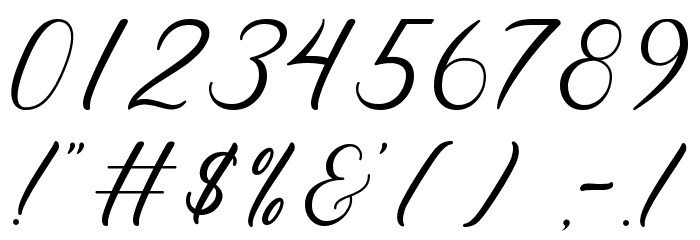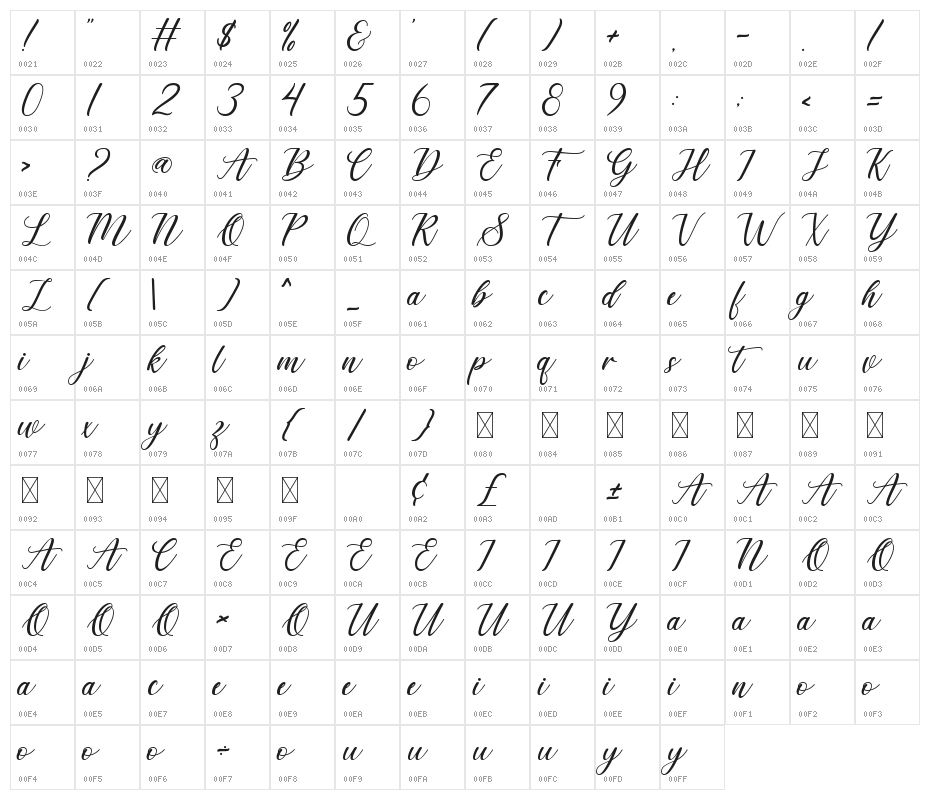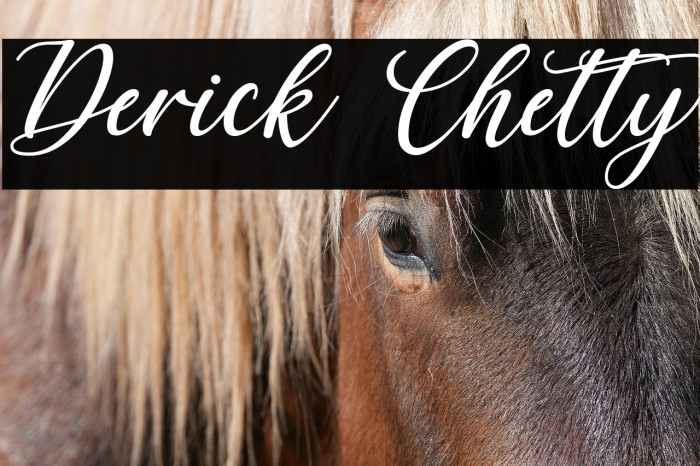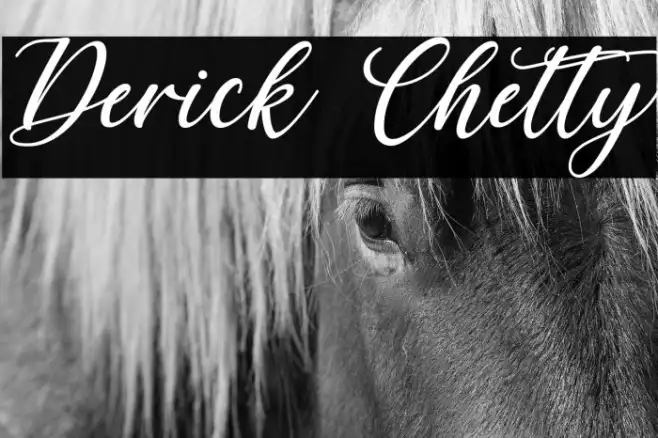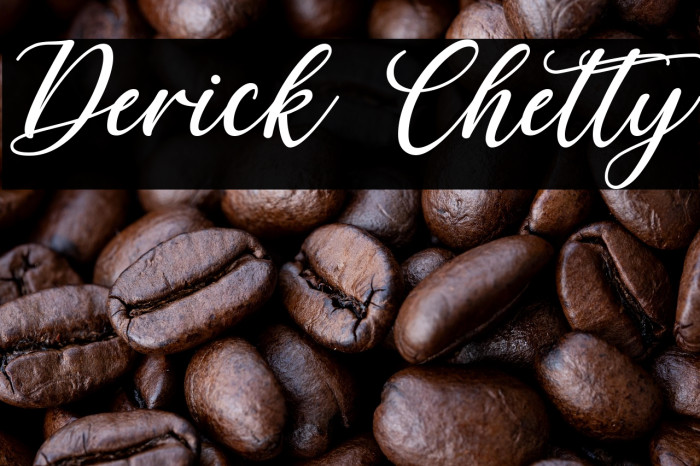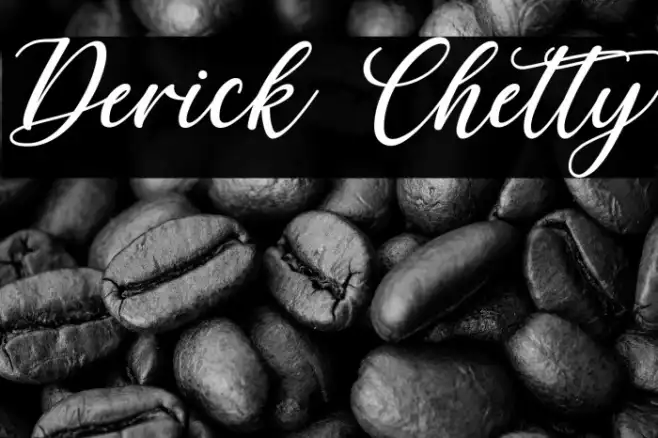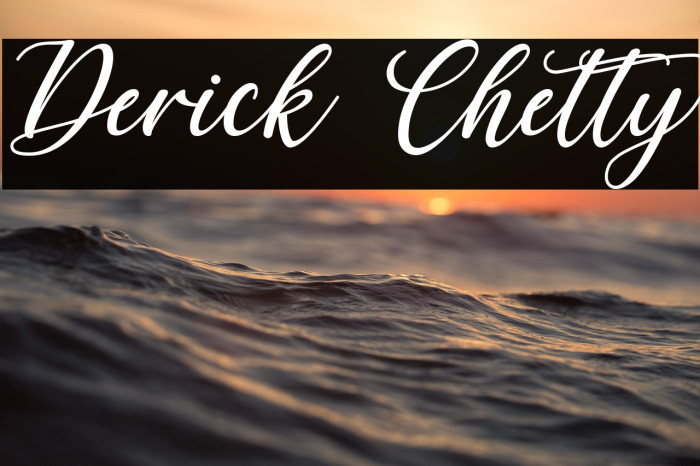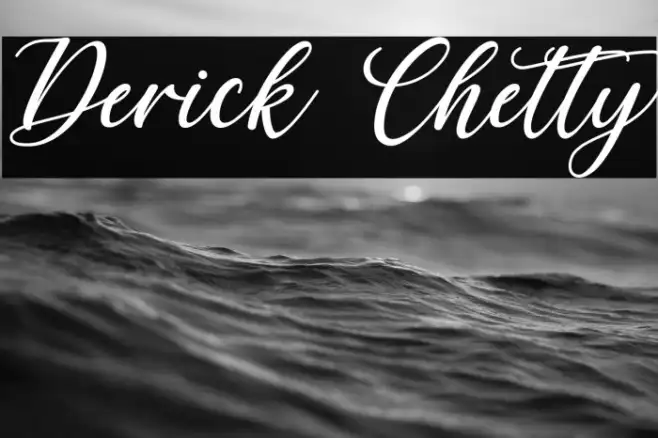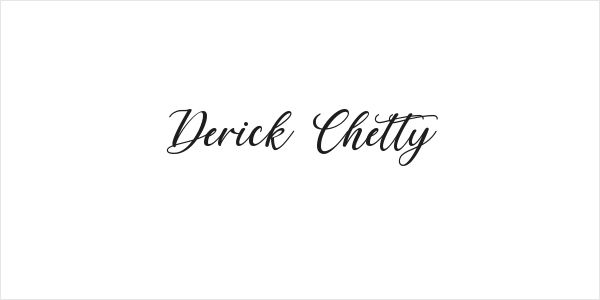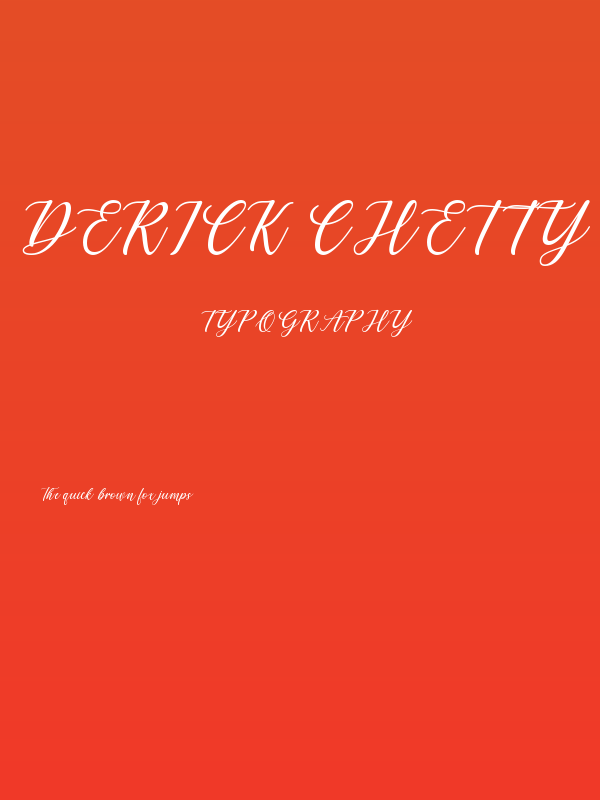
Derick Chetty Font
Derick Chetty Description
This elegant script font features flowing, cursive letterforms that exude sophistication and charm. The uppercase letters are gracefully connected, with delicate loops and swashes that add a touch of flair. The lowercase letters maintain a smooth, consistent flow, enhancing readability while preserving the font's stylish appearance. Numbers and special characters are crafted with the same attention to detail, ensuring a cohesive look across all text elements. The font's overall design is perfect for projects that require a personal, handwritten touch, such as invitations, greeting cards, or branding materials.
Overall StyleElegant
Use CaseInvitations, Branding, Greeting Cards
Proposed ProjectsIdeal for wedding invitations, elegant branding, greeting cards, and personal stationery.